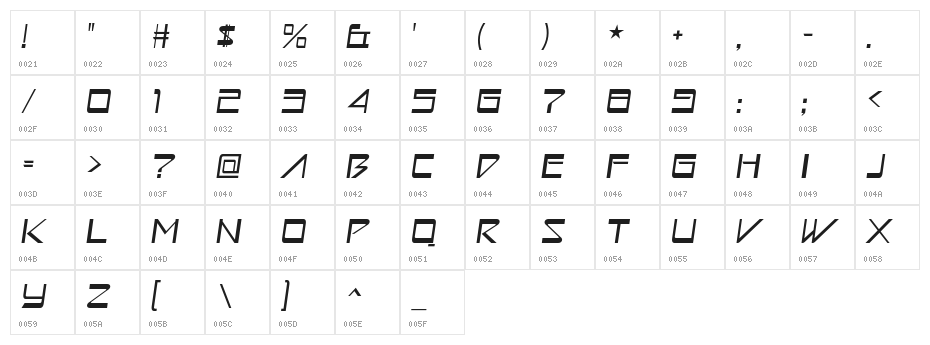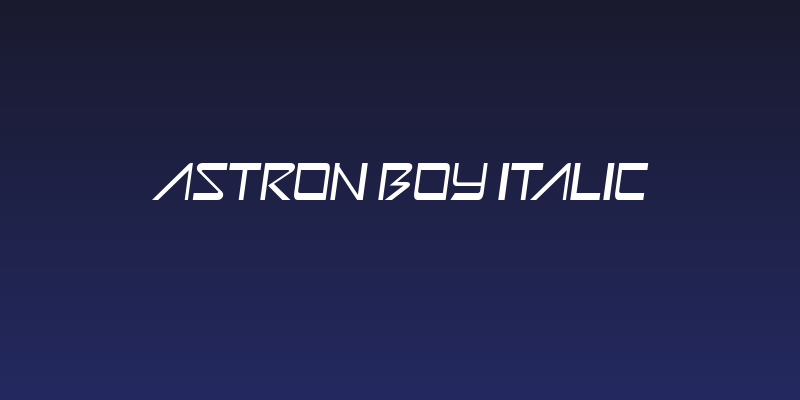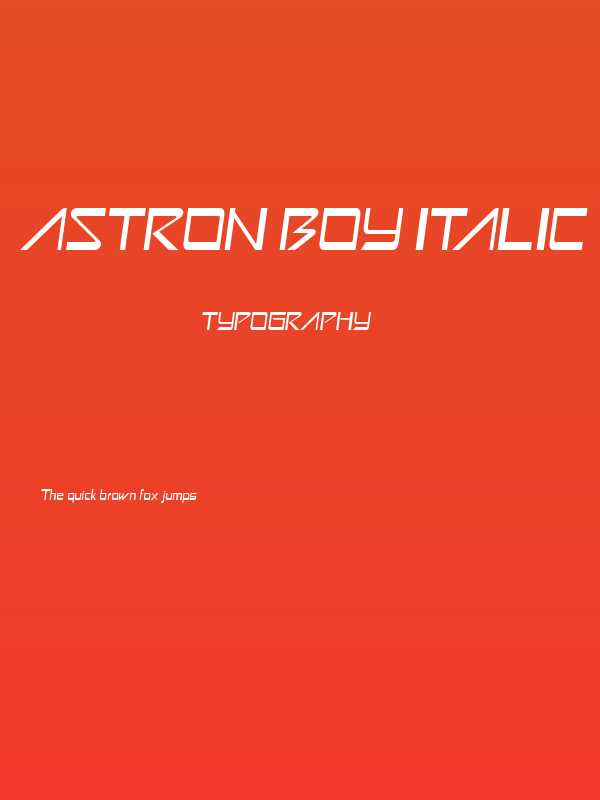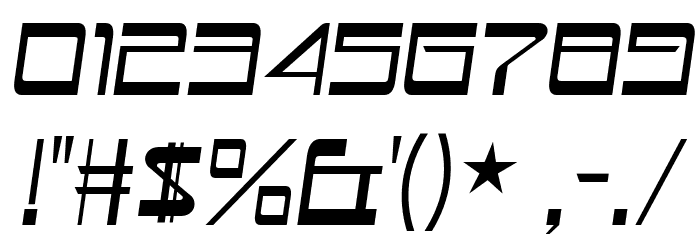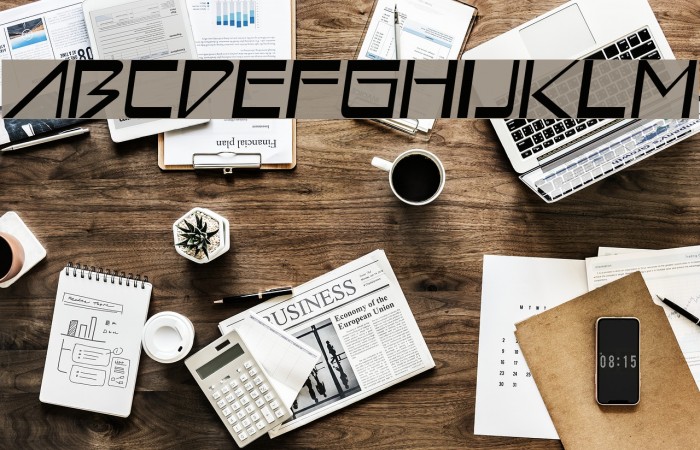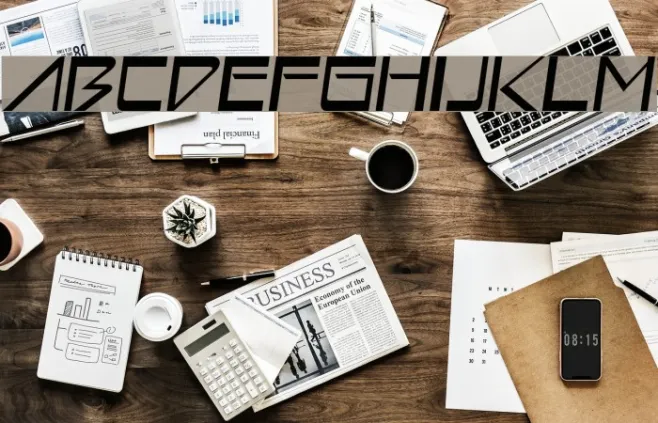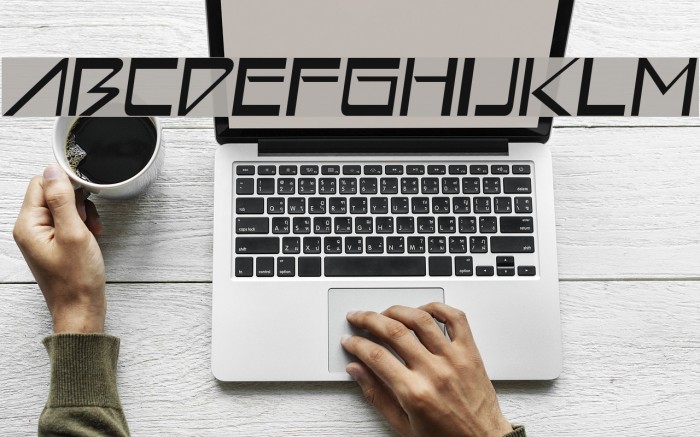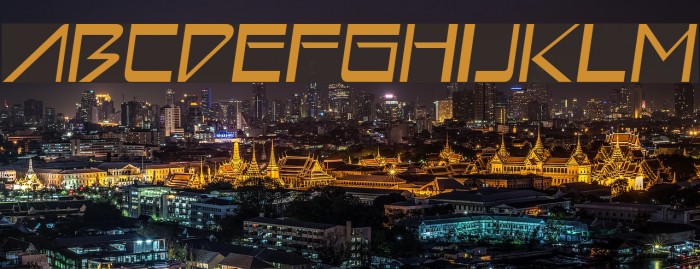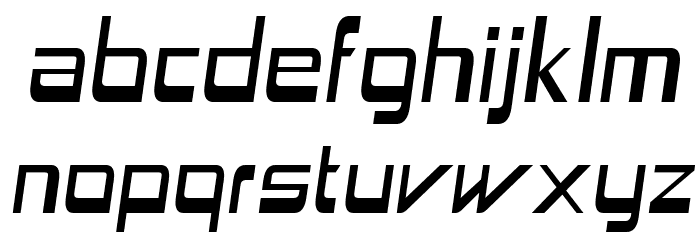
Astron Boy Italic Font
Astron Boy Italic Description
This font features a futuristic and sleek design with sharp angles and clean lines, giving it a modern and dynamic appearance. The italic style adds a sense of motion and speed, making it ideal for projects that require a forward-thinking and energetic vibe. The uppercase letters are bold and distinctive, while the lowercase letters maintain a consistent flow. Numbers and special characters are designed to match the overall aesthetic, ensuring a cohesive look across all text elements.